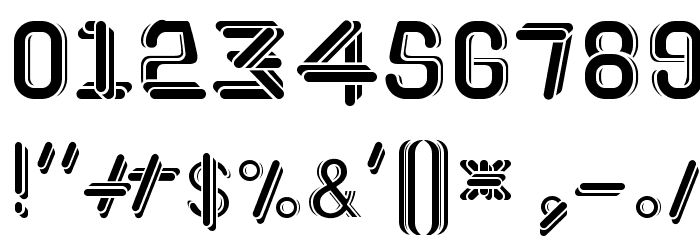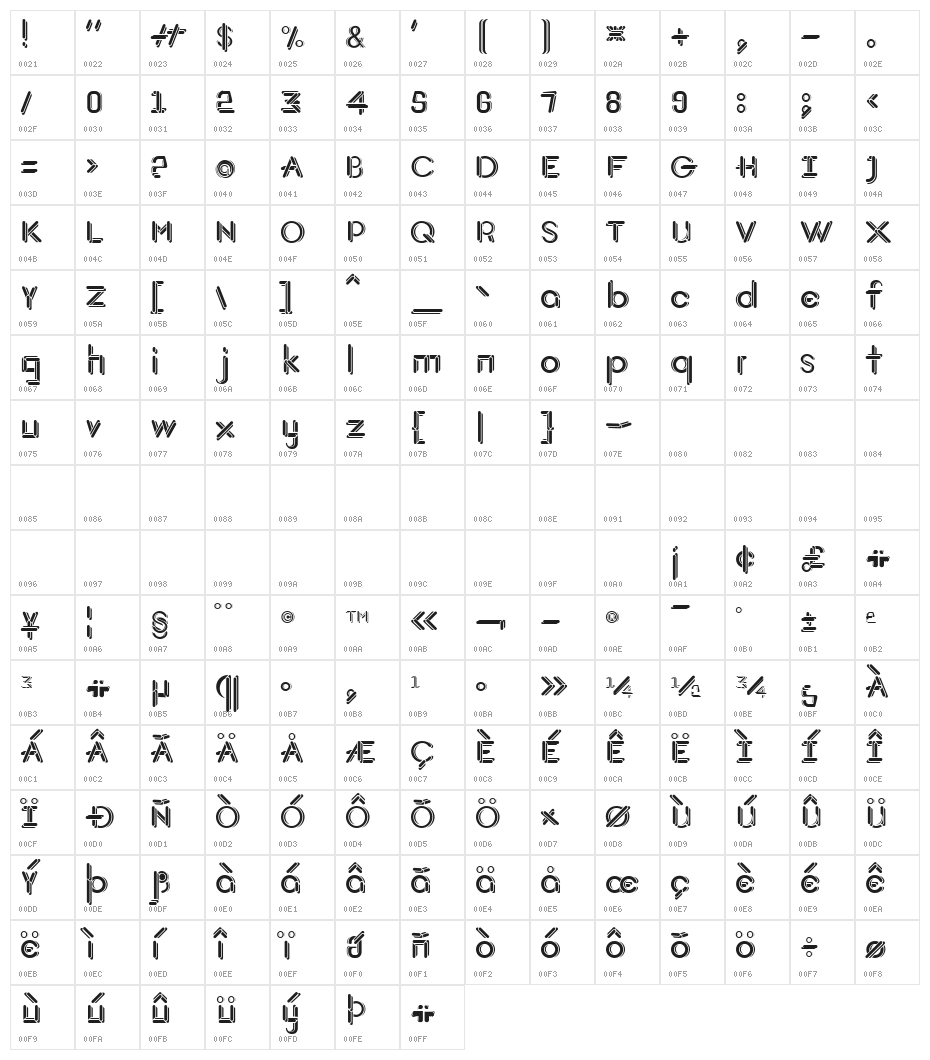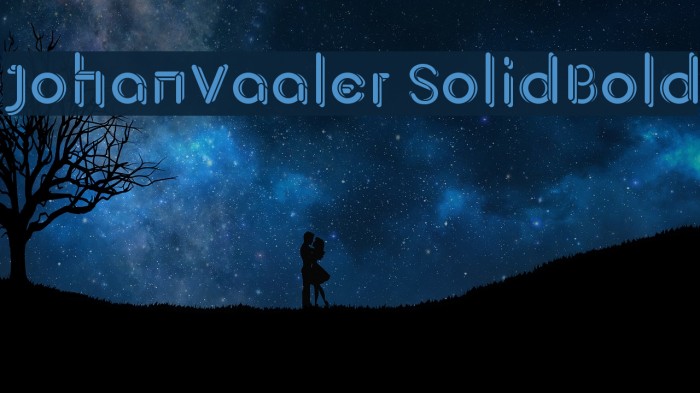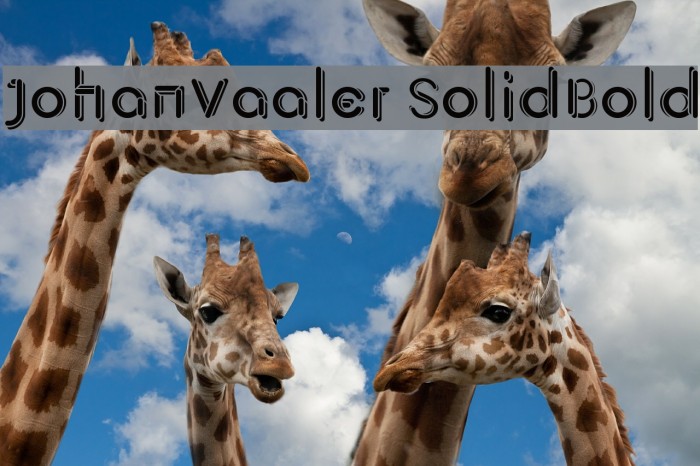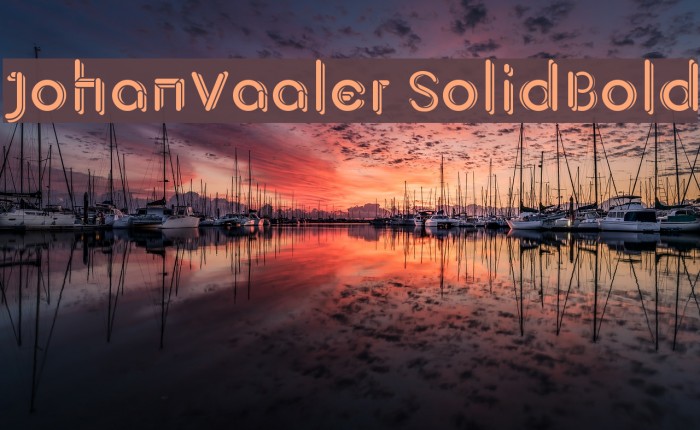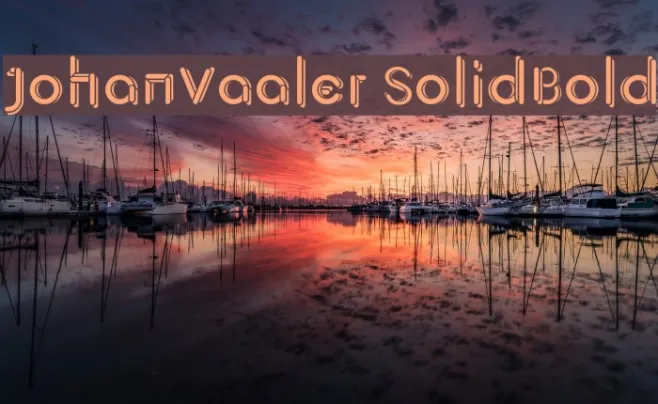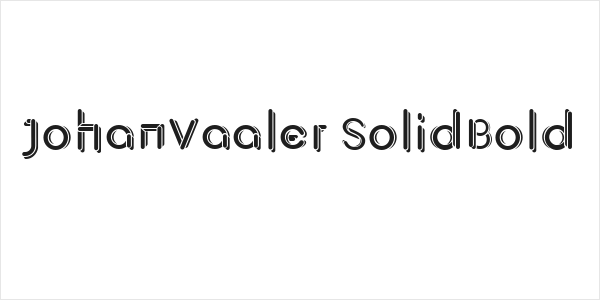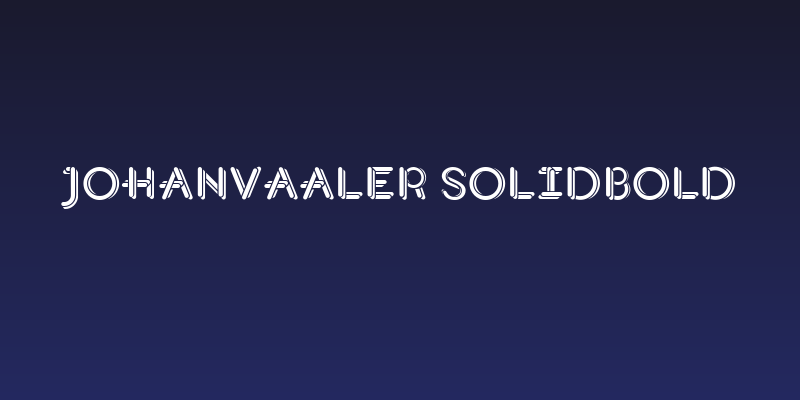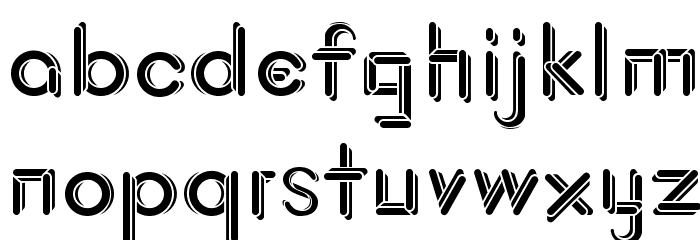
JohanVaaler SolidBold Font
JohanVaaler SolidBold Description
This font features a bold and solid design with a unique, modern twist. Each character is constructed with a double-line effect, creating a sense of depth and dimension. The uppercase and lowercase letters maintain a consistent style, with rounded edges and a geometric structure. Numbers and special characters follow the same design principles, ensuring uniformity across all elements. The font's distinct appearance makes it ideal for projects that require a contemporary and eye-catching look.